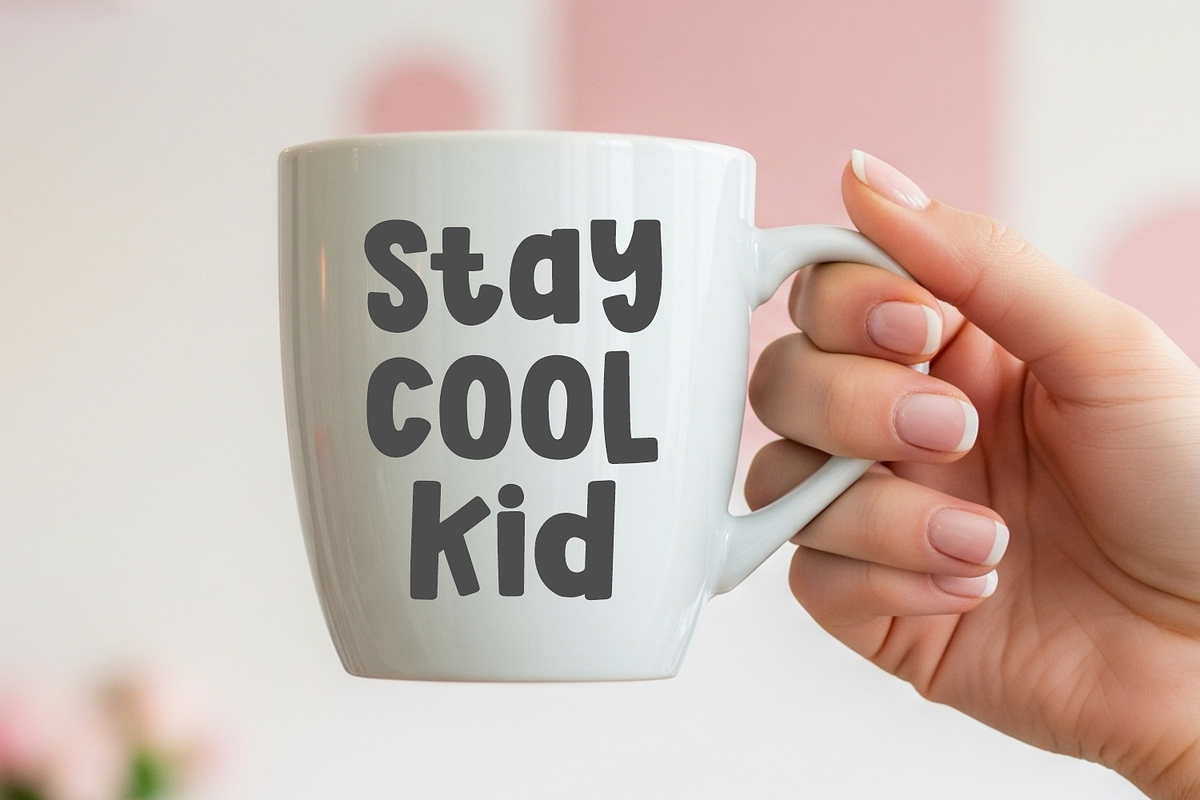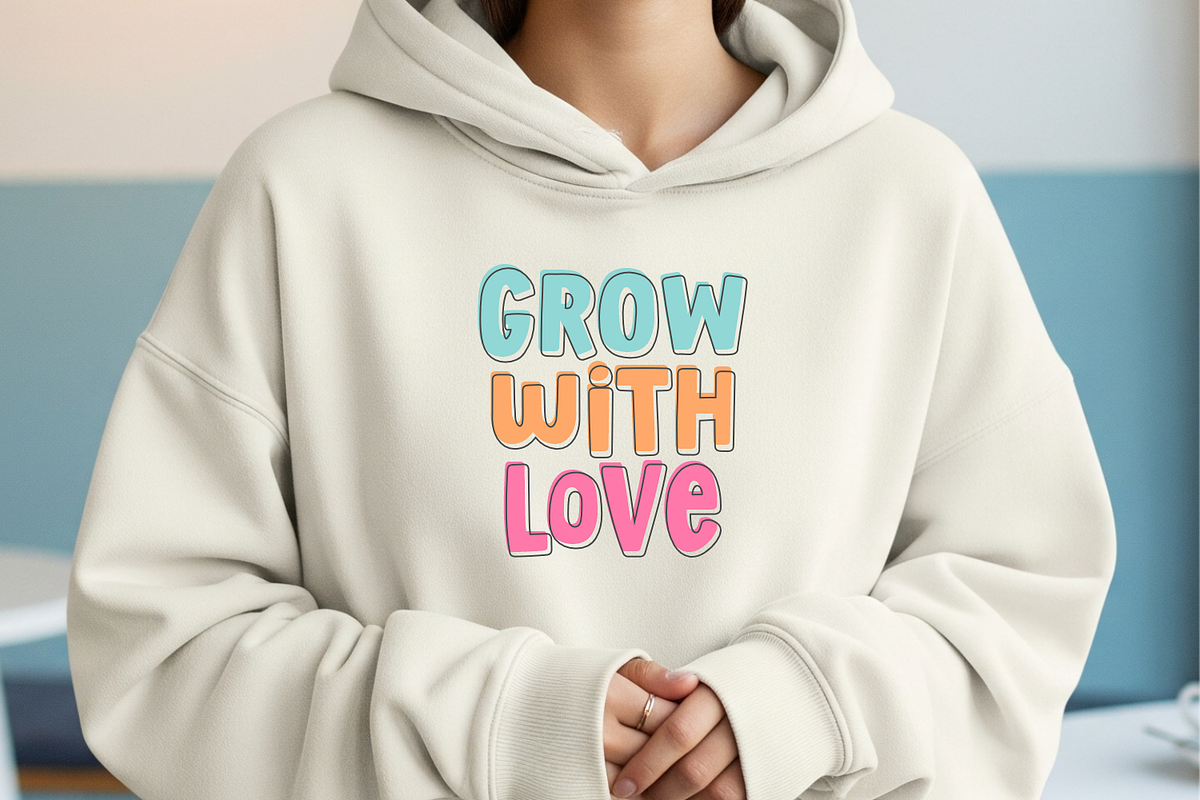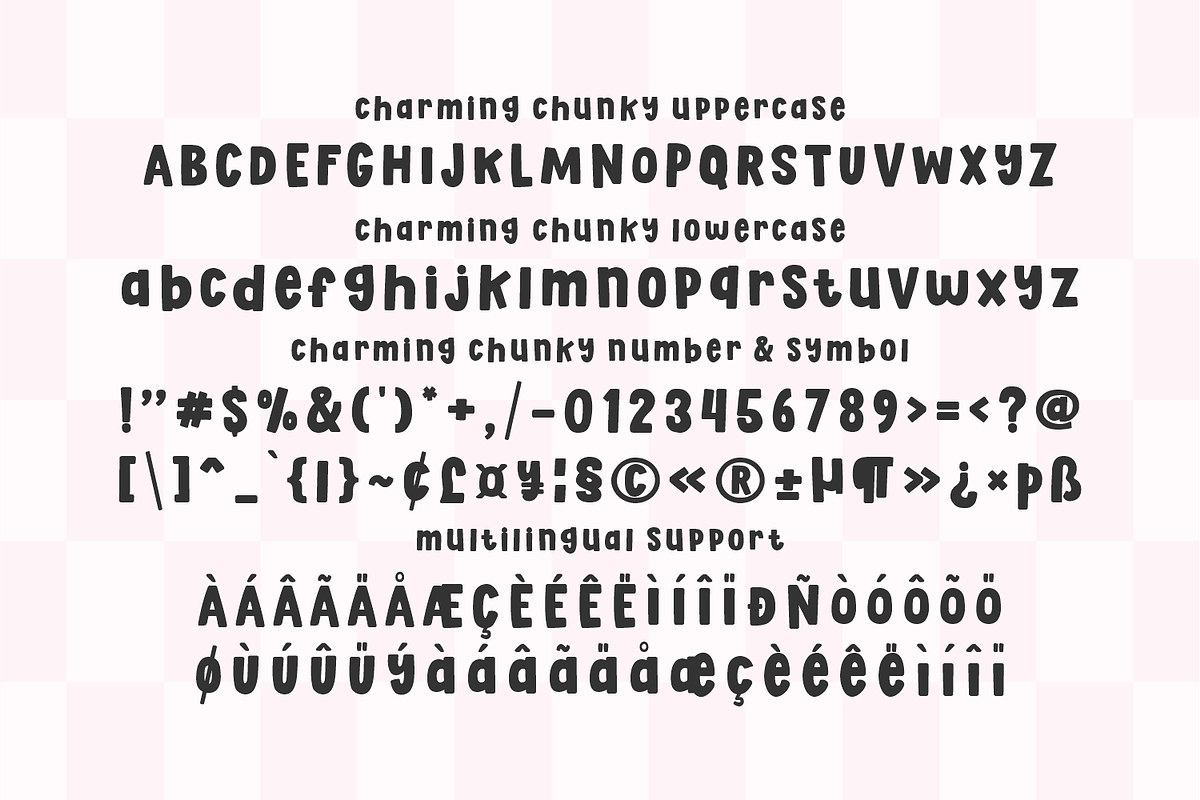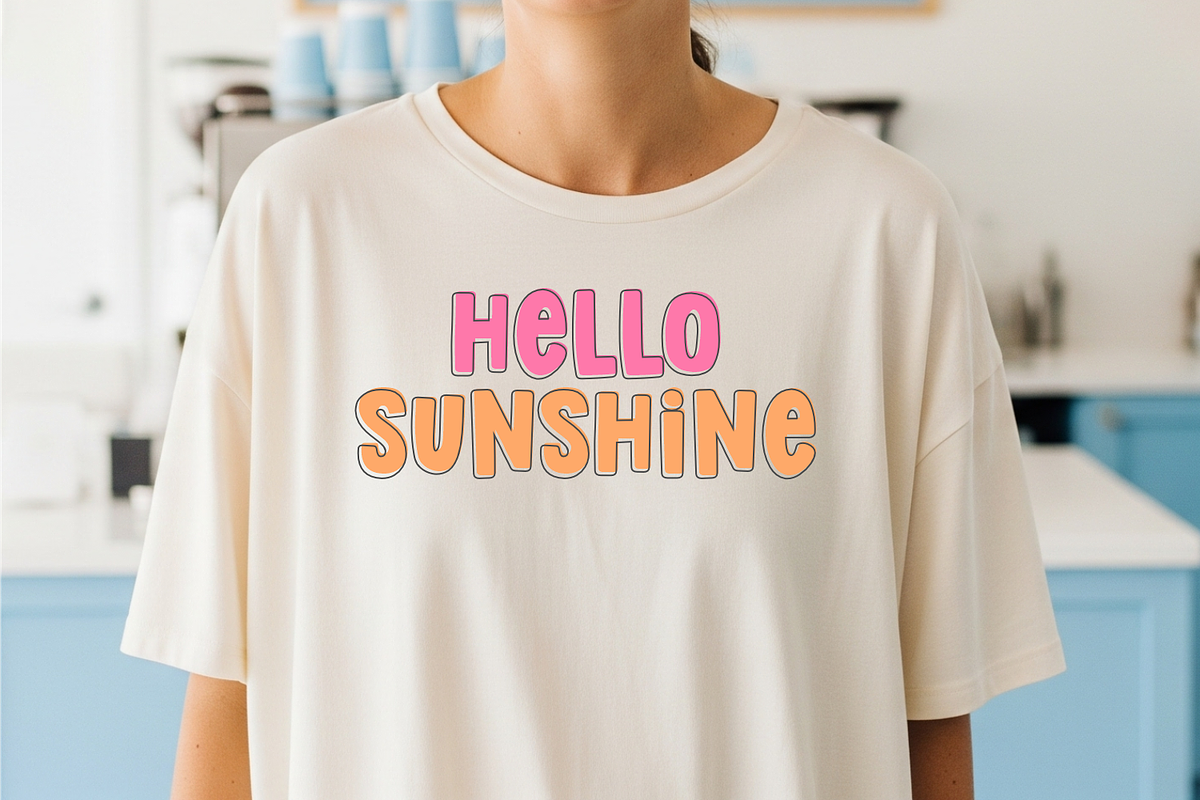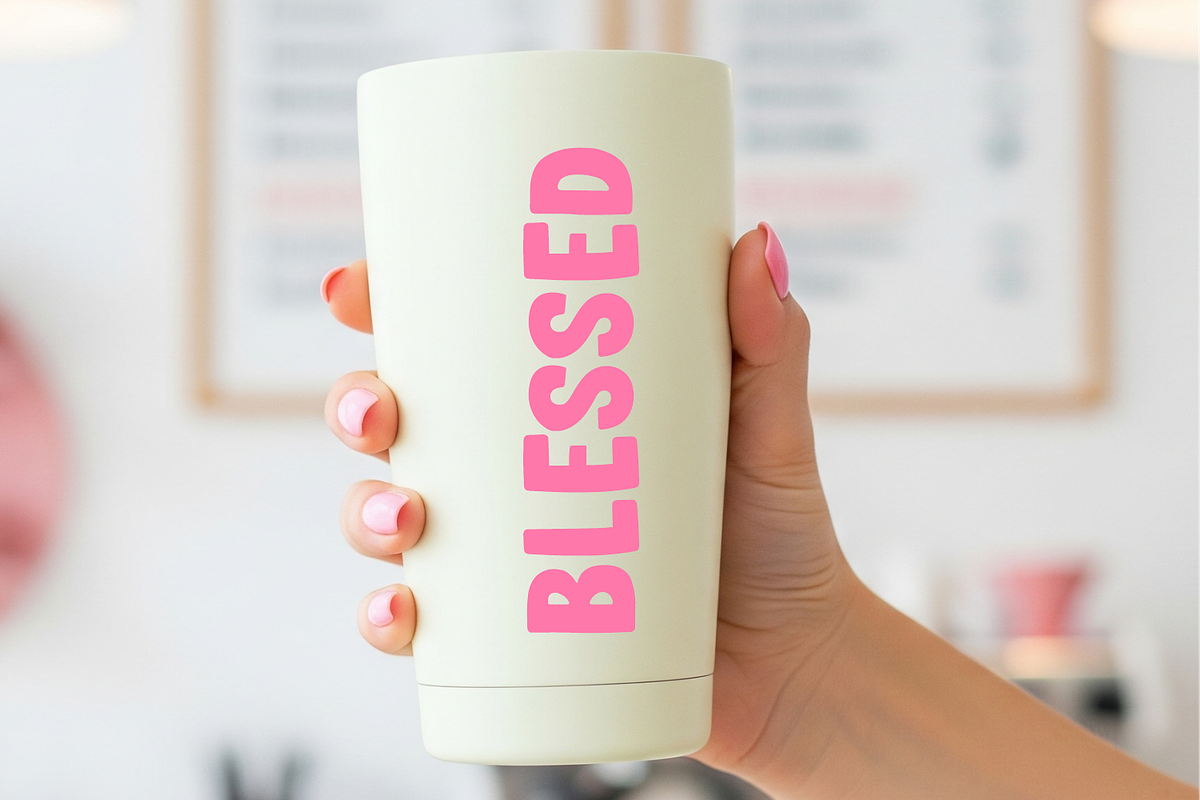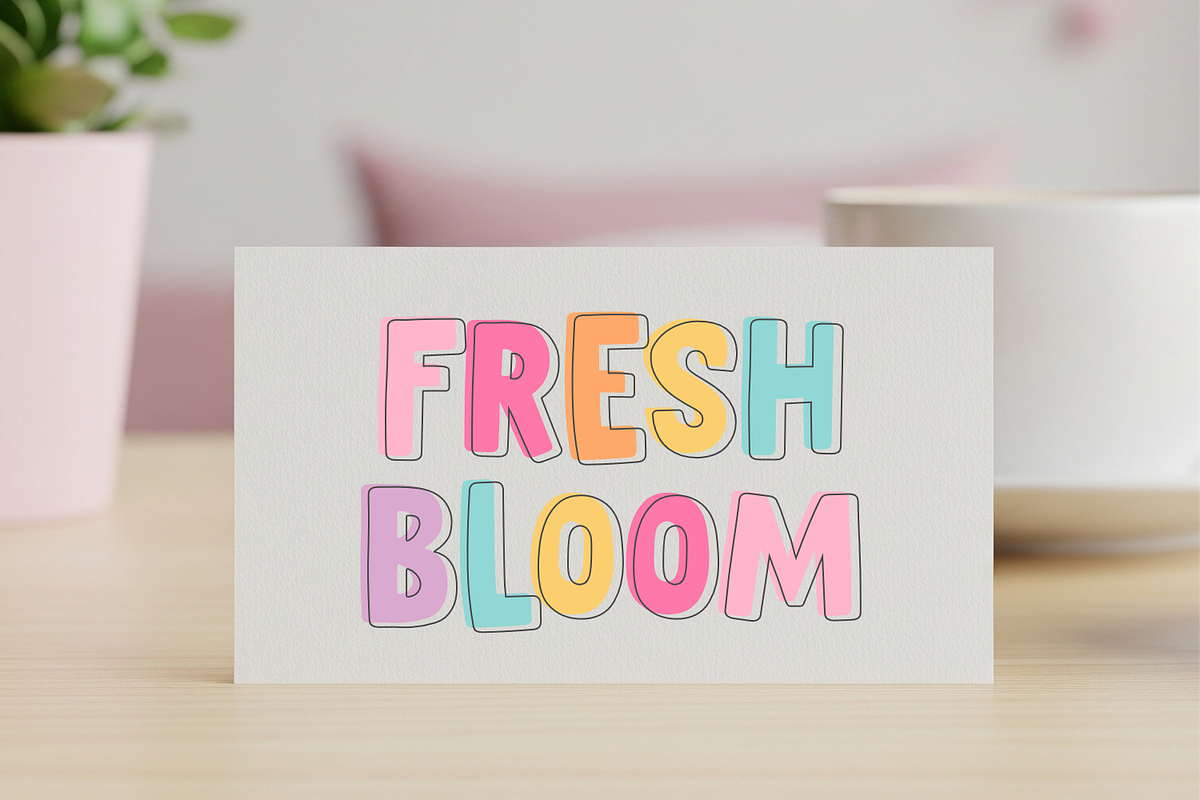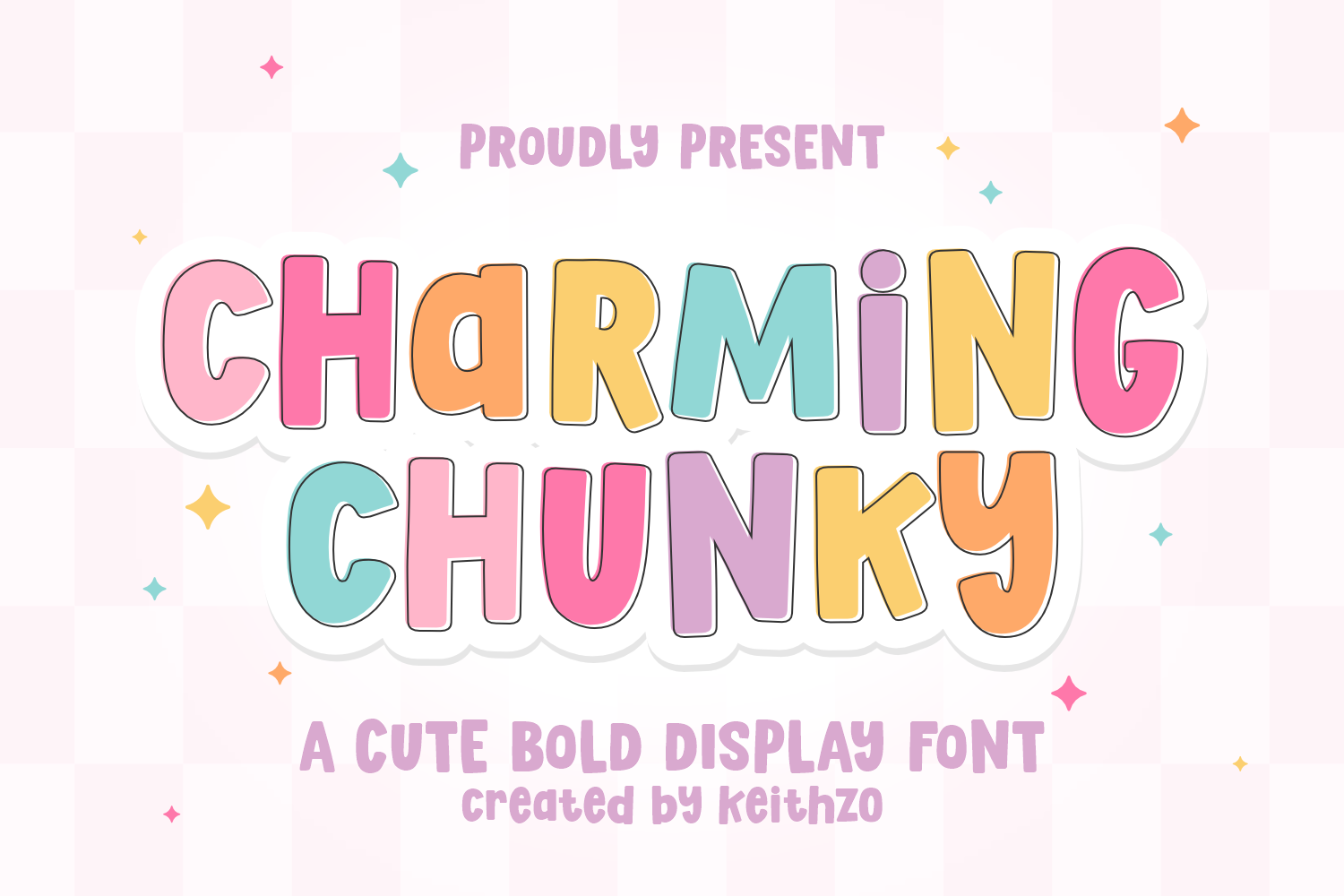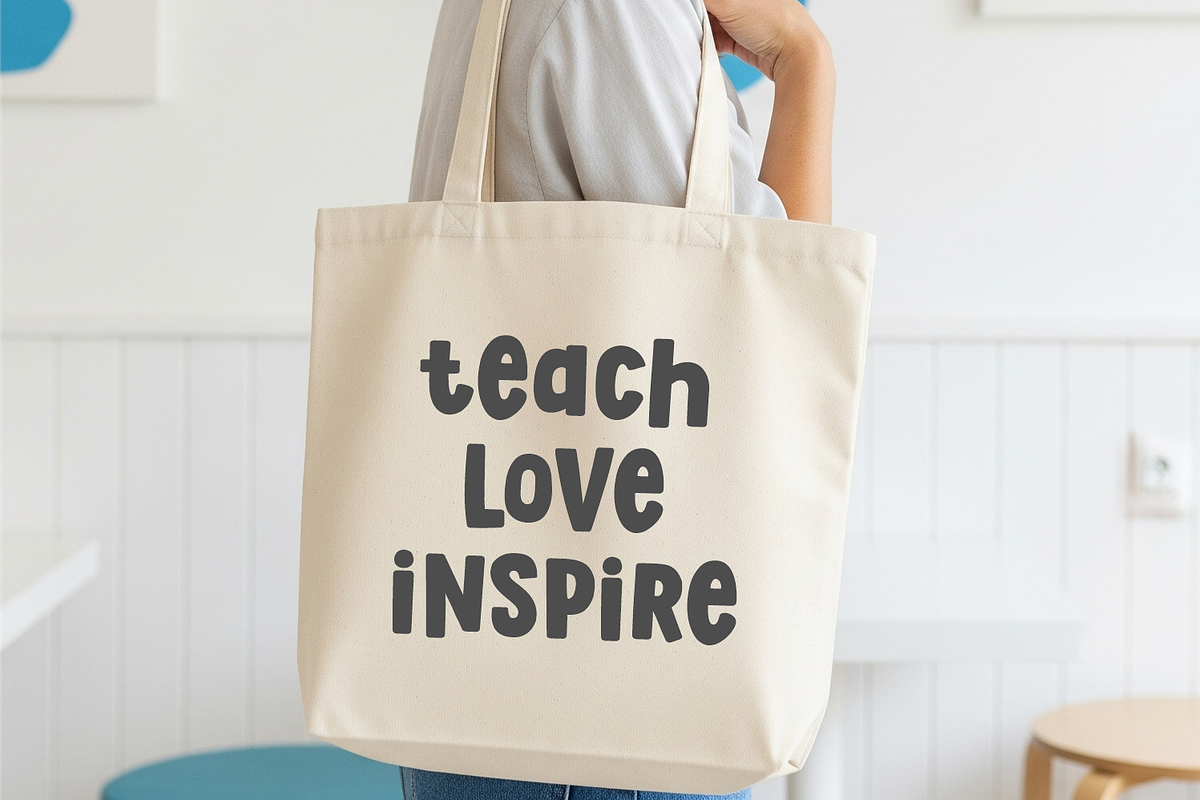
Charming Chunky - Display Font
Add a touch of sweetness to your creative projects with Charming Chunky, a delightfully bold display font designed to radiate fun and positivity. Characterized by its soft, rounded edges and bubbly personality, this typeface is the ultimate choice for designers looking to create a friendly and approachable aesthetic.
What makes Charming Chunky truly stand out is its versatile, hand-drawn bold style that ensures your message is both eye-catching and easy to read. It is perfectly suited for a wide range of applications, from vibrant t-shirt designs and cozy hoodies to trendy tote bags and custom stickers. Whether you are working on kids’ branding, nursery decor, cheerful social media quotes, or playful product packaging, its thick and stable letterforms provide a solid yet whimsical foundation for your art.
Complete with a full set of uppercase and lowercase characters, numbers, and essential punctuation, Charming Chunky is a must have toolkit for any crafter or professional designer aiming for a modern, kawaii, or retro-inspired look. Let your creativity bloom and make every word look charming!